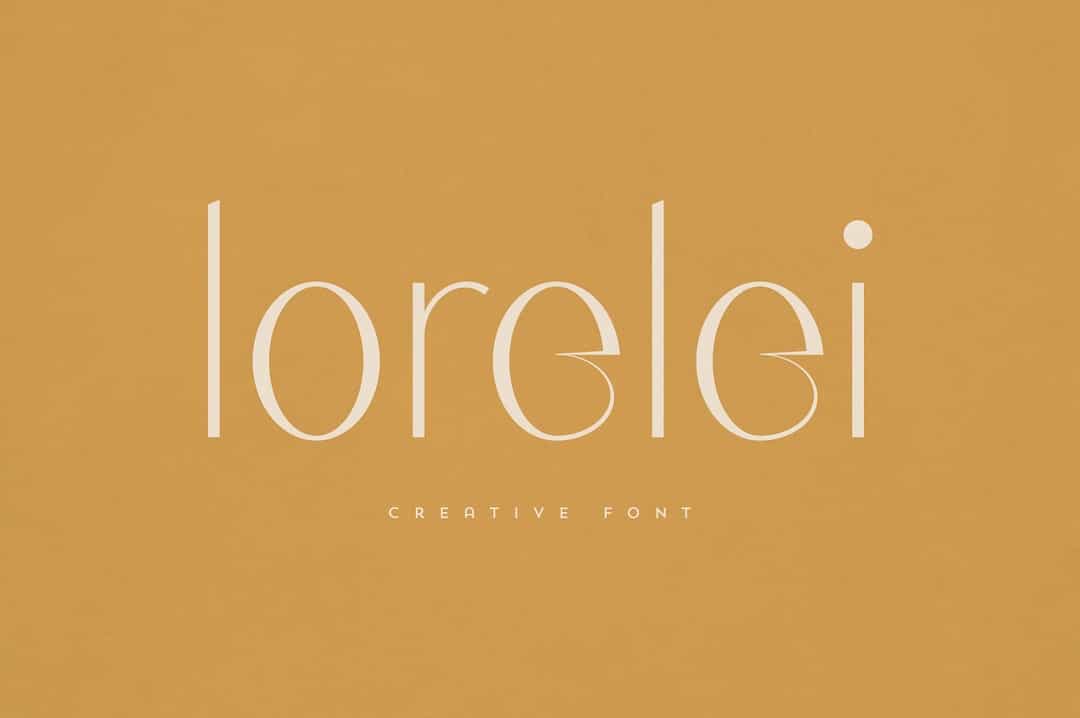
Lorelei San Serif Font is an elegant and flexible sans serif font designed to create a remarkable typographic style! Perfect for headlines, logos, branding or text use – Lorelei adds flair to any headline or logo! Plus this font works wonderfully as part of homeware designs, packaging for products or magazine headers! Additionally it makes a chic text overlay in images as background layers!